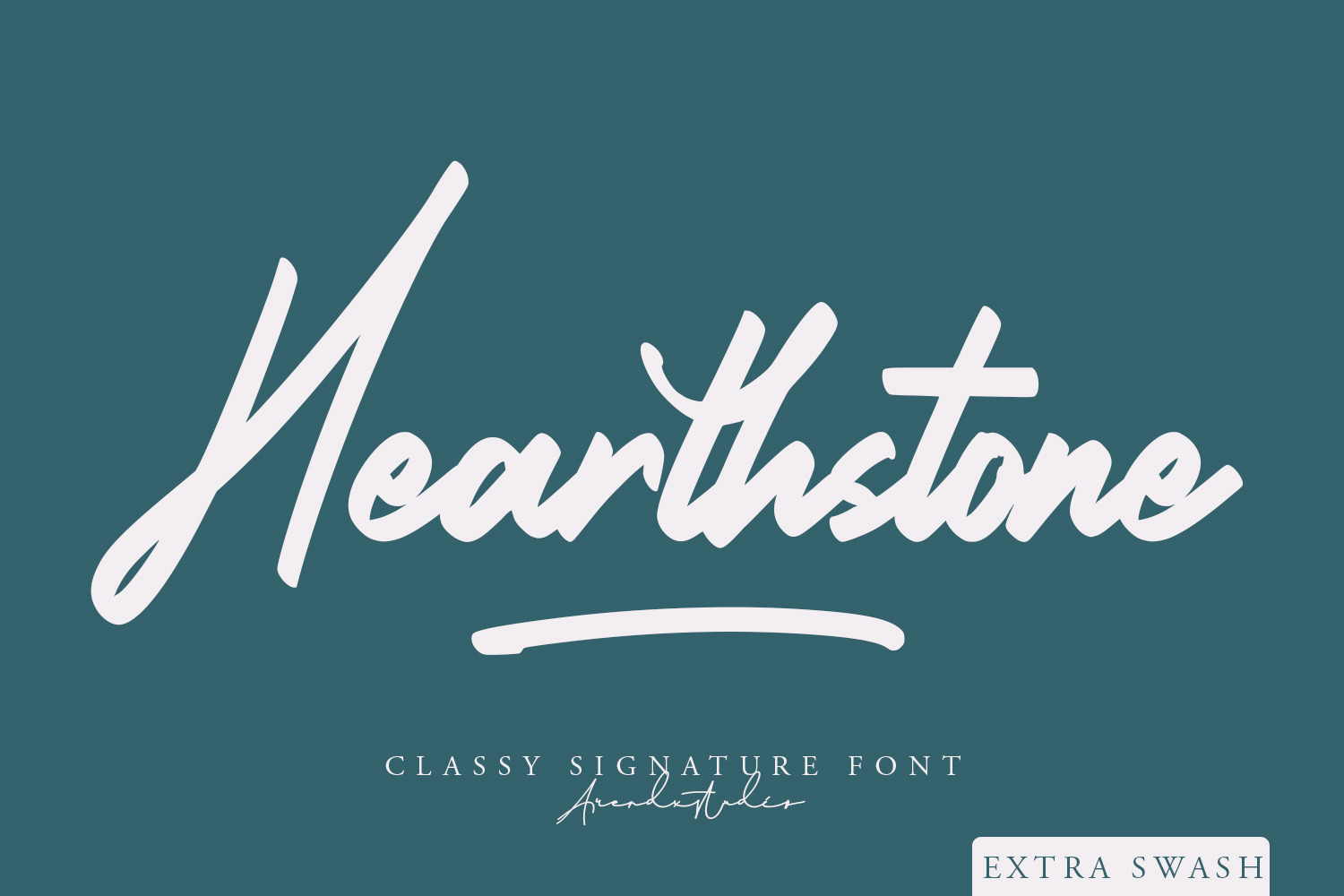
Hearthstone - Signature Font is a classy signature script with a natural & stylish flow. This collection of scripts is perfect for personal branding. this works well for many applications. Everything from personal branding & wedding invitations to advertising could benefit from this collection of signature fonts
Features : • Character Set A-Z • Numerals & Punctuations (OpenType Standard) • Accents (Multilingual characters) • Ligature • Alternate • Swash